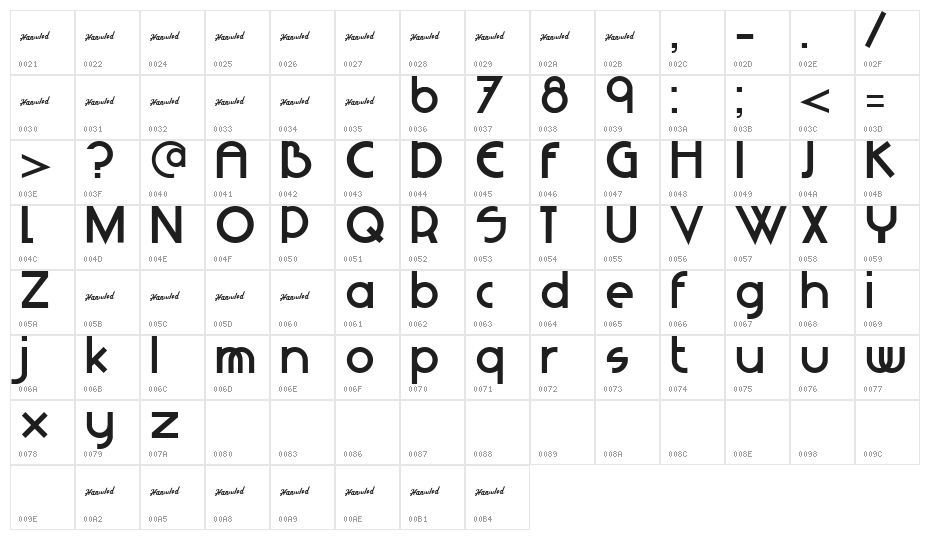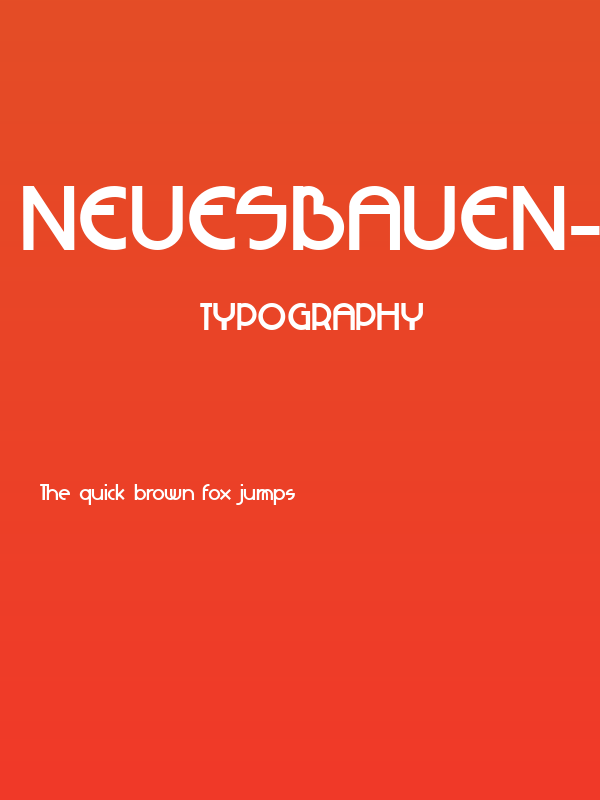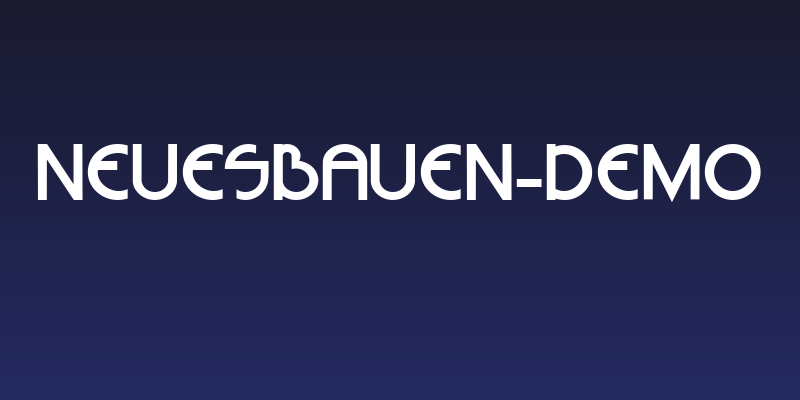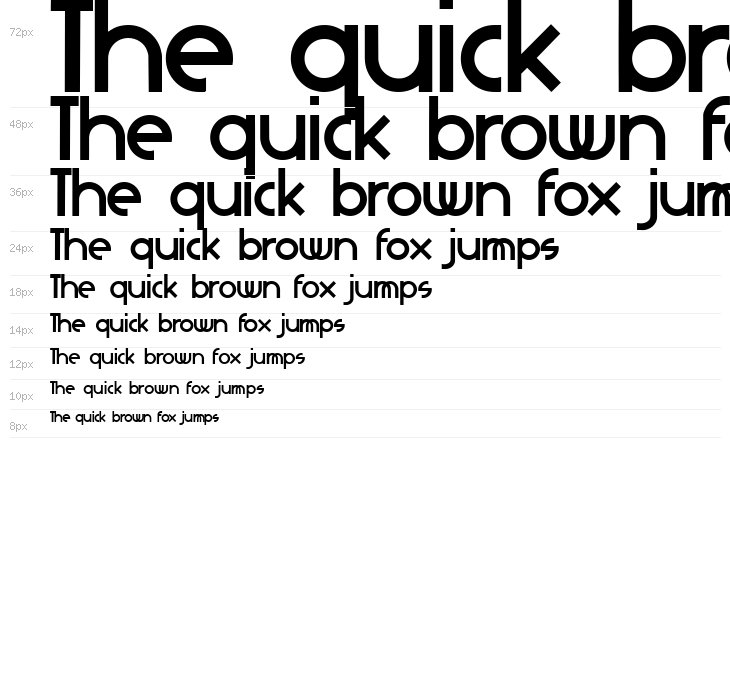
NeuesBauen-Demo Font
NeuesBauen-Demo Description
This font exhibits a modern and geometric style with clean lines and a bold presence. The uppercase letters are characterized by their uniform height and consistent stroke width, creating a harmonious and balanced appearance. The lowercase letters maintain the geometric theme with rounded edges and a slightly condensed form, enhancing readability while preserving a unique aesthetic. The numerals are distinct and align well with the overall design, featuring a similar stroke weight and geometric structure. Special characters are integrated seamlessly, maintaining the font's cohesive look. This font is versatile, suitable for various design applications where a contemporary and bold statement is desired.
| Proposed Projects | Ideal for branding, advertising, and editorial design projects that require a modern and bold aesthetic. |